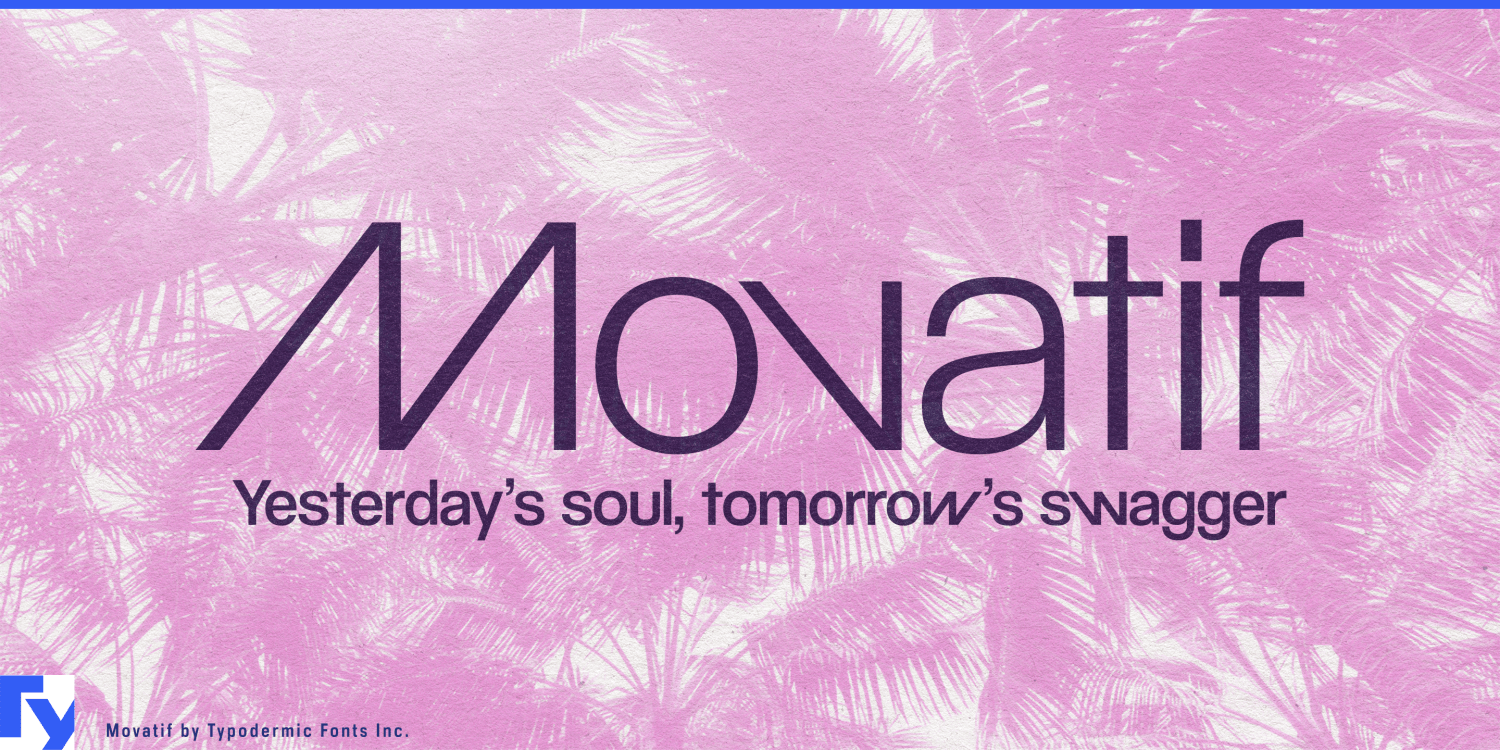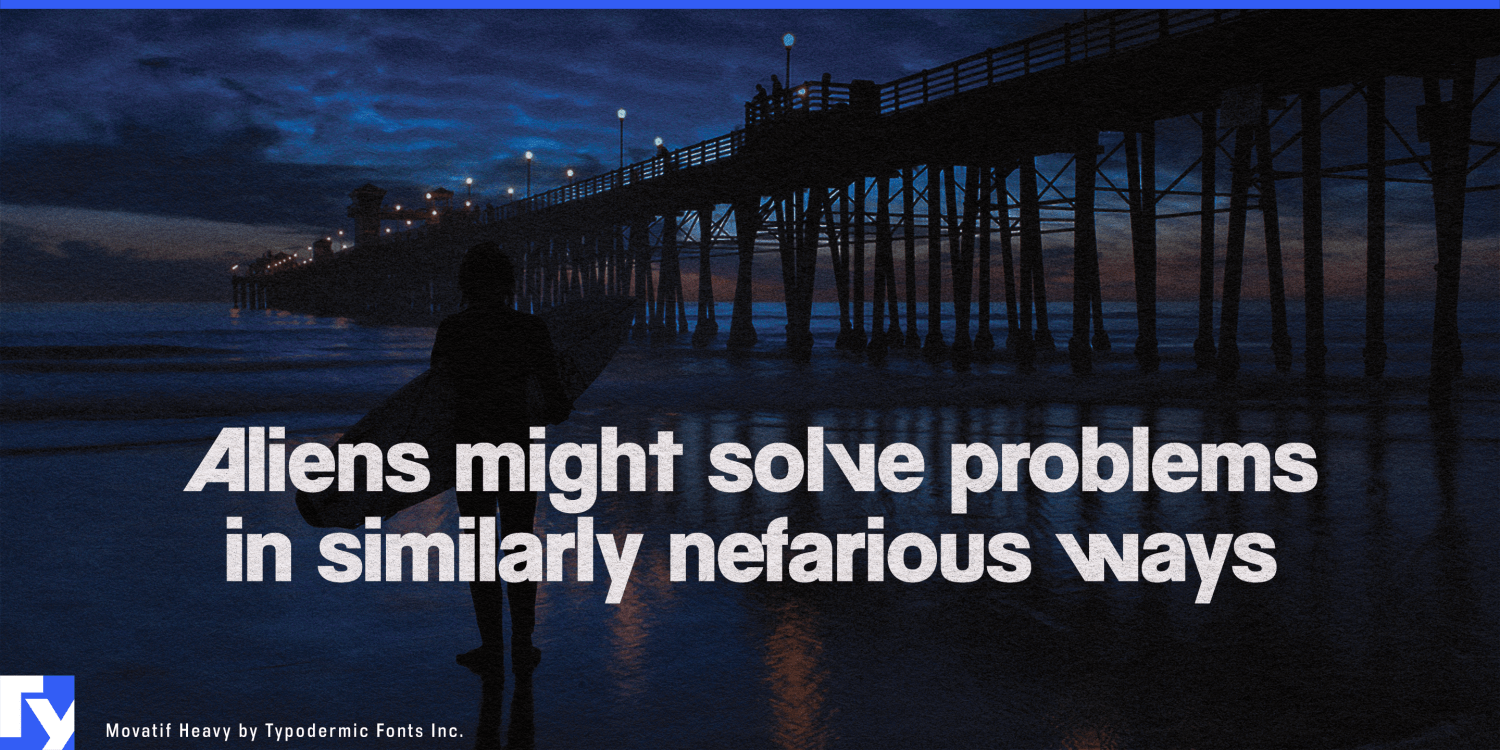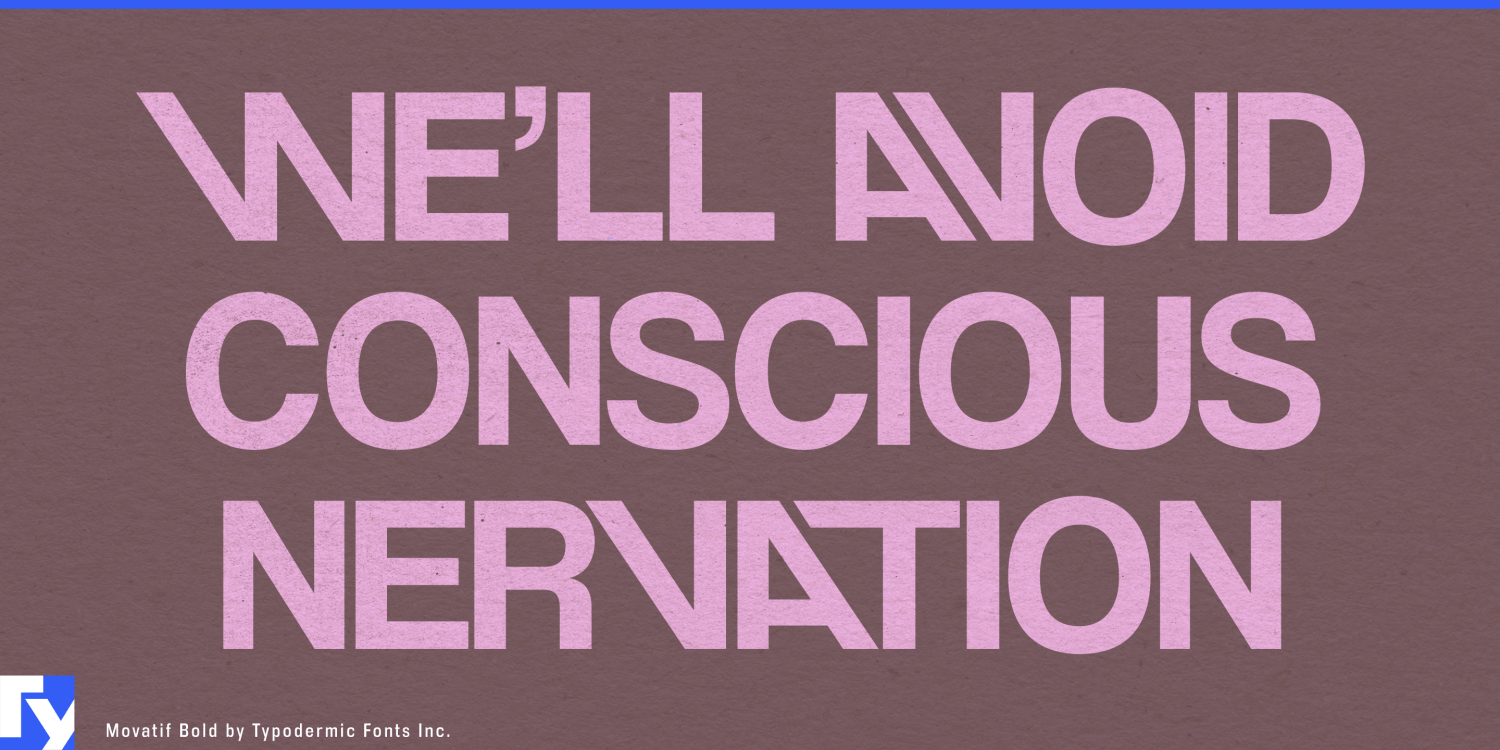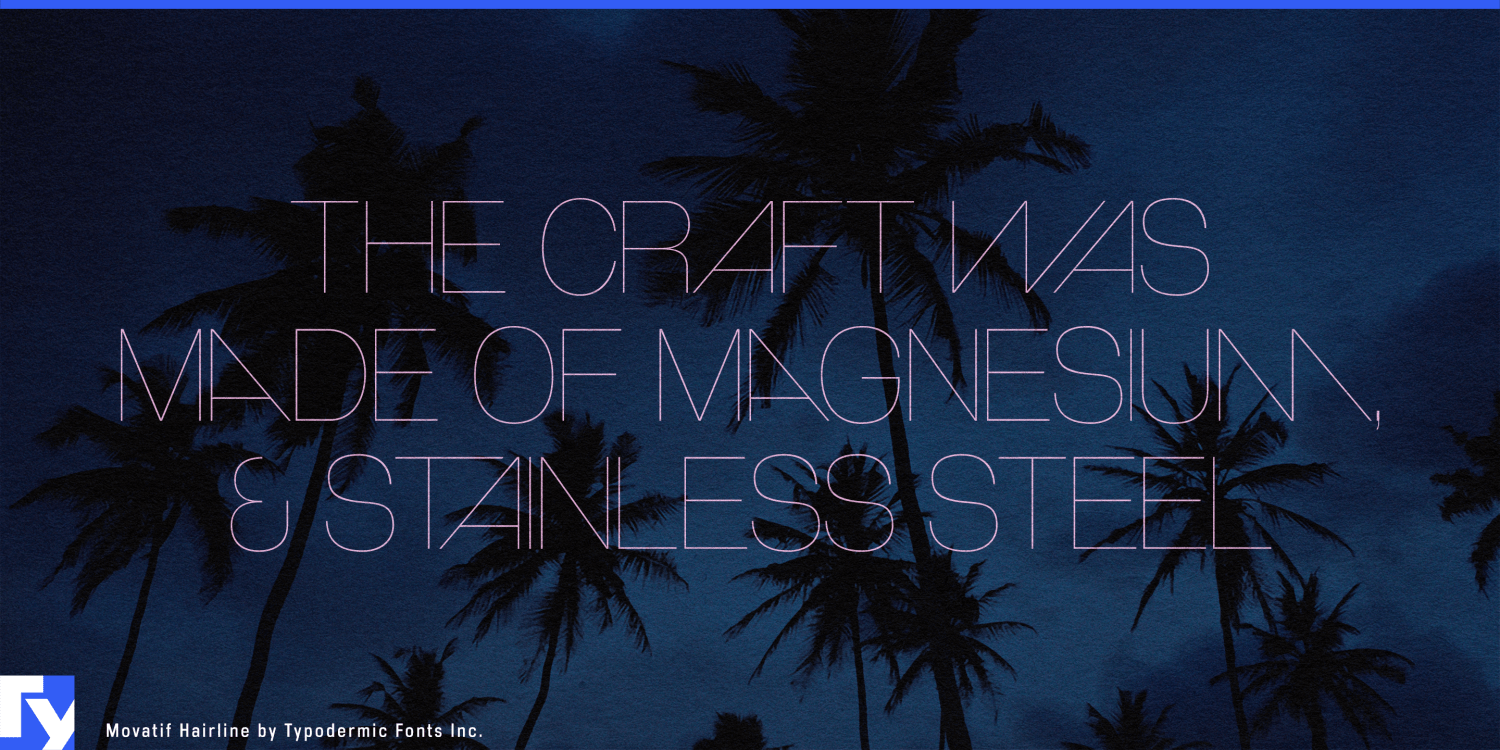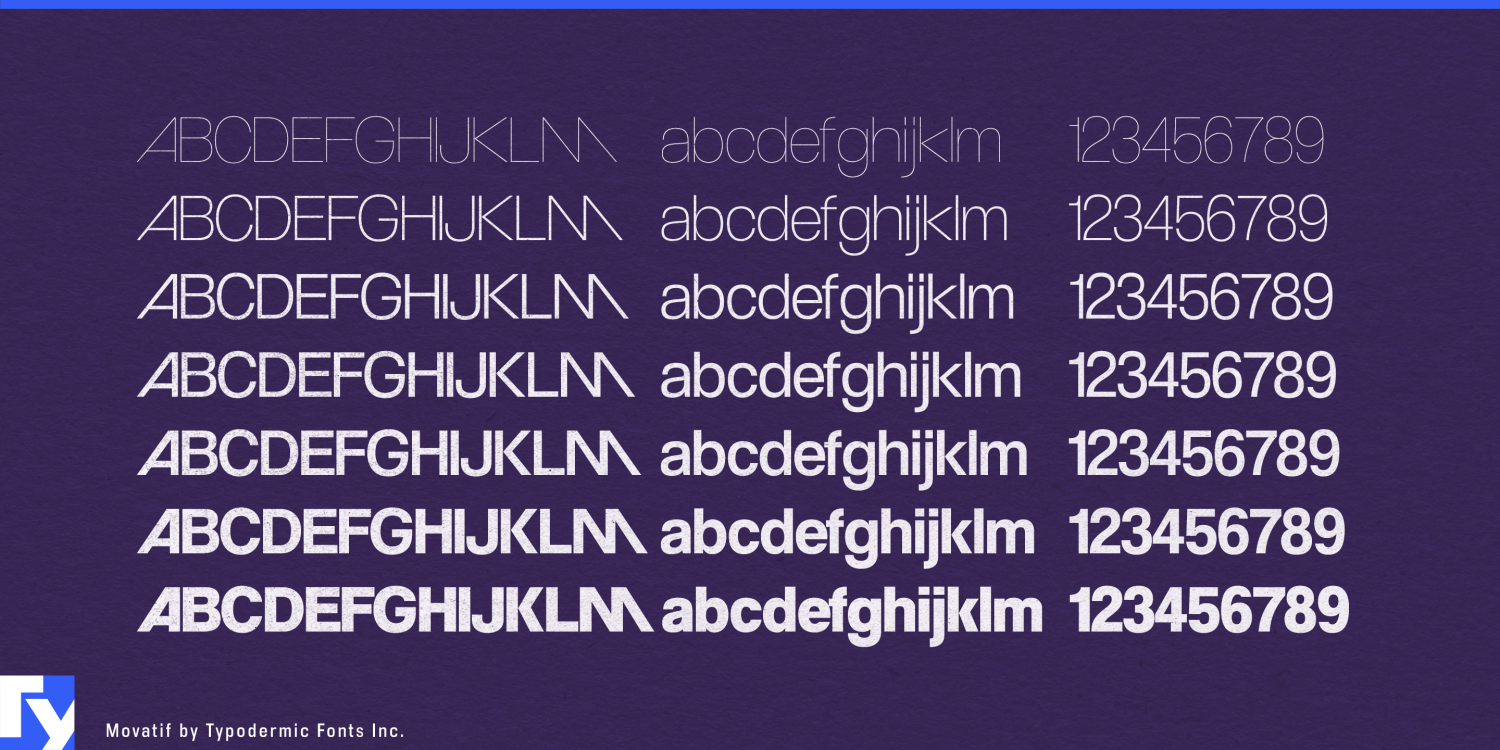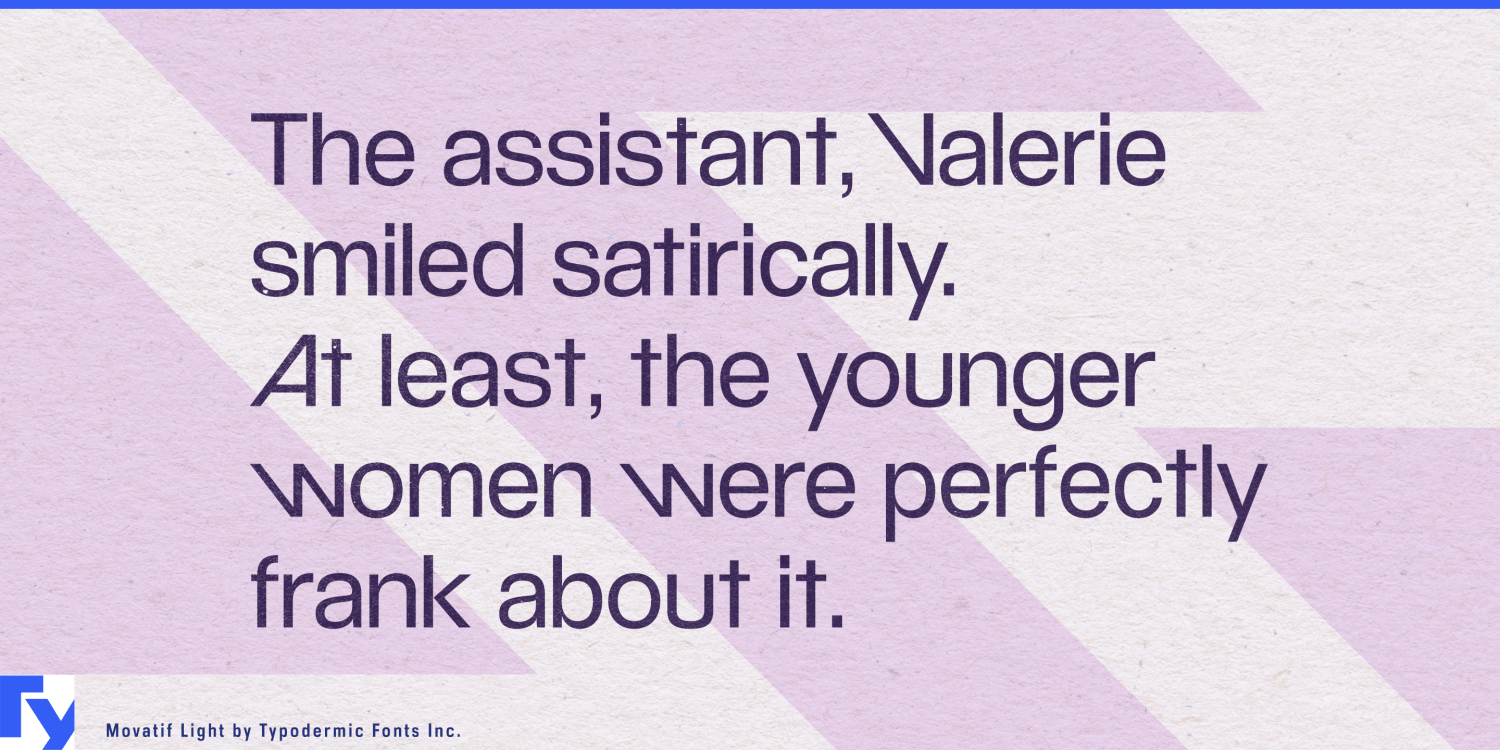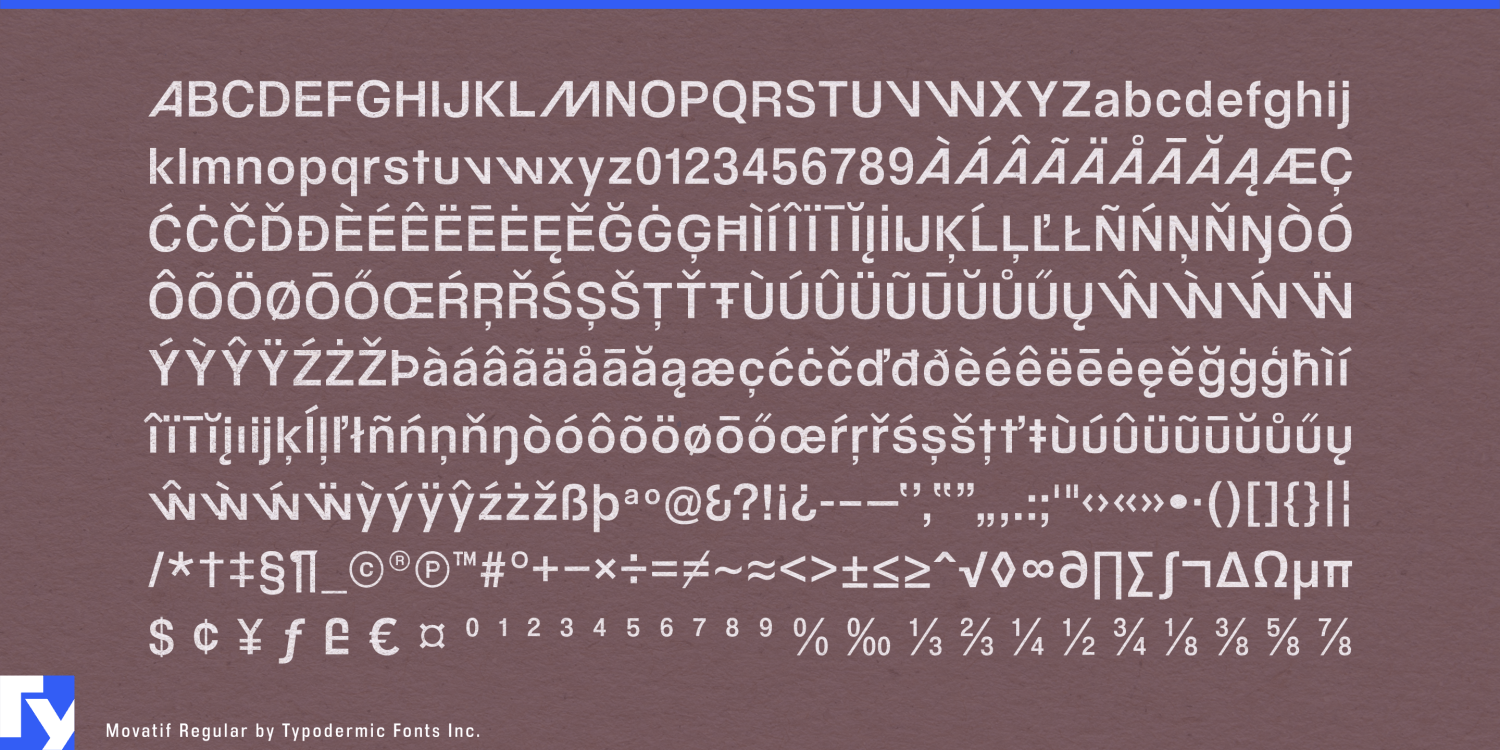
Movatif
Fictional companies often look fictional for the wrong reason. Set their names in a neutral sans and they resemble placeholders; give them overtly futuristic lettering and they seem to have been invented yesterday. A believable near future needs brands with visual baggage, as though they have survived old campaigns, acquisitions, product launches and several imperfect redesigns. Movatif gives an imaginary corporation a past.
Its geometric foundation feels familiar, but the details keep slipping out of place. Tight spacing, diagonal joins and integrated ligatures pull selected letter combinations into compact, wordmark-like structures. The result resembles a half-remembered logo from an alternate timeline: professionally designed, recognizably modern and difficult to place with certainty.
That temporal ambiguity is useful in near-future films, games and episodic productions. Biotechnology companies, private research institutes, transport operators, consumer-electronics manufacturers, wellness campuses and property developers all need identities that appear to predate the story. Movatif can establish the central company name, then extend across facility signs, employee badges, vehicle markings, product cartons, orientation films, recruitment graphics and internal presentations.
Its polished surface is particularly effective in corporate dystopias and institutional thrillers. A fictional employer, private hospital, artificial-intelligence laboratory or employee-optimization service may need to look reassuring at first glance. Movatif supplies the smooth geometry; its unexpected joins introduce a slight structural wrongness without announcing the organization as sinister.
Large fictional worlds create a practical production problem. A studio may need a parent company, several subsidiaries, research divisions, product families and branded devices, each convincing enough to appear on screen for only a few seconds. Commissioning custom lettering for every minor organization is inefficient, while setting every name in the same ordinary sans flattens the world. Movatif’s ligatures give different words distinct silhouettes while preserving a shared corporate design culture. One family can suggest a conglomerate, an era or an entire layer of commercial history.
The mixed-case forms carry that identity beyond the central wordmark. Department names, campaign headings, short slogans, environmental graphics and fictional advertisements can retain the same subtly altered logic; a quieter companion face can handle contracts, technical data and dense interface text.
Movatif is most useful when a fictional world needs evidence of its own recent past. It gives invented companies the polished, slightly timeworn identity of organizations that were already in business before the story began.